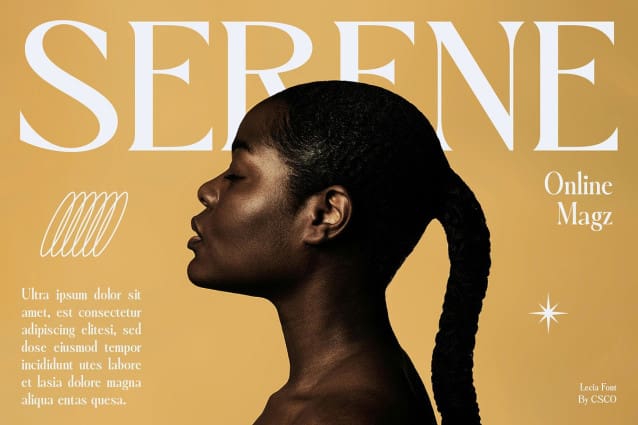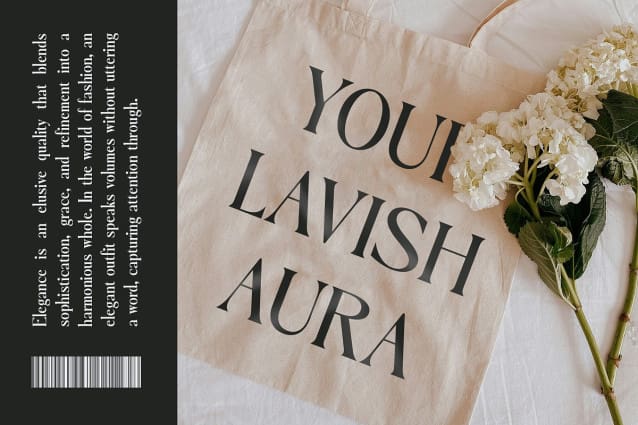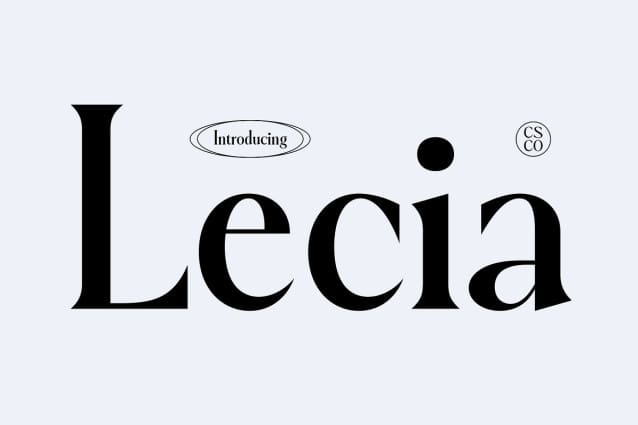
Lecia Font
Lecia Font is a modern serif typeface designed to convey elegance and sophistication. Its clean lines and refined details make it perfect for professional use, adding a touch of modernity to any design.
Designed with professional use in mind, Lecia Font is ideal for corporate branding, editorial layouts, and other projects that require a refined and elegant appearance. Its modern serif design ensures that your message is conveyed with clarity and style.
Despite its elegant form, Lecia Font is versatile and stylish. Whether used for headlines, body text, or branding, its modern serif style adds a touch of sophistication to any project.
Elevate your designs with LeciaFont, where modernity meets elegance. Its clean lines and elegant form ensure that your projects stand out with a professional and polished look.